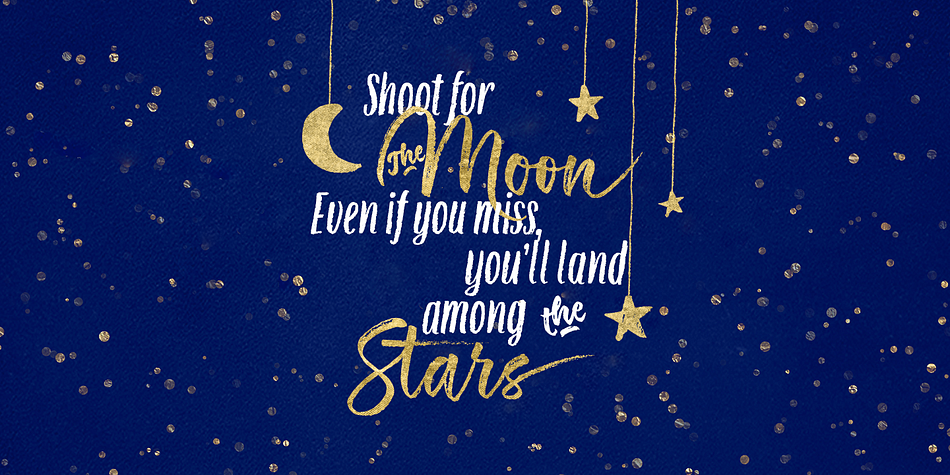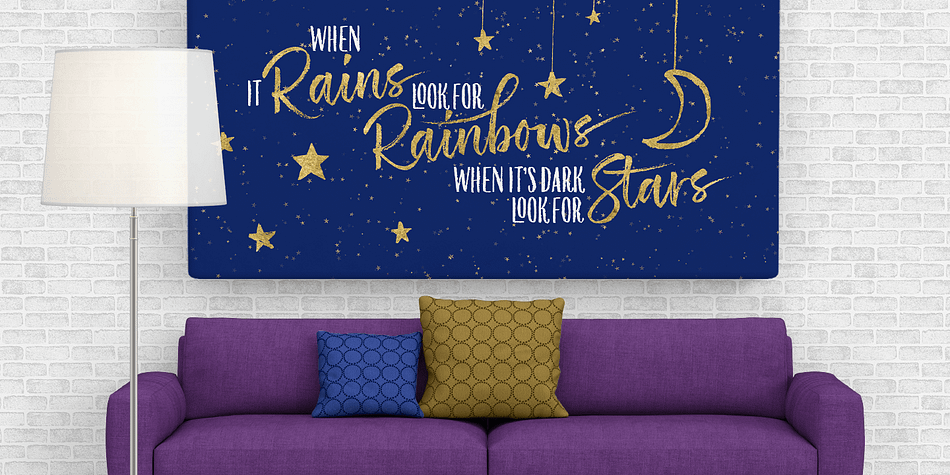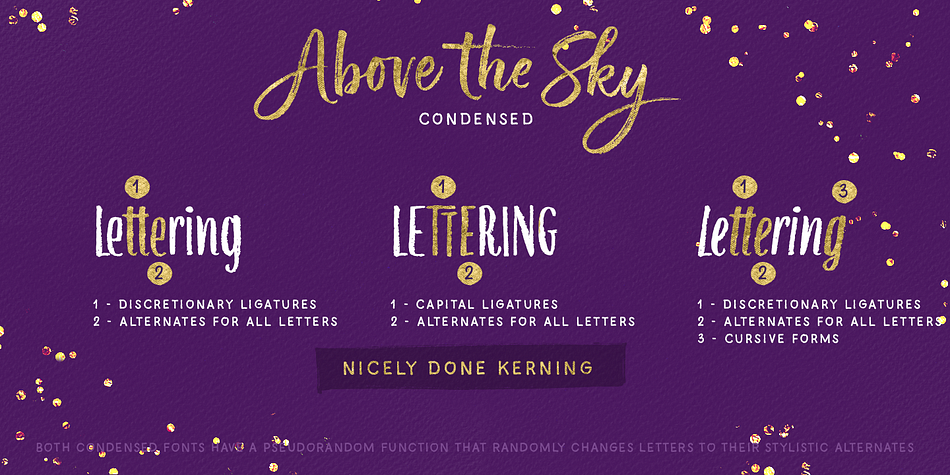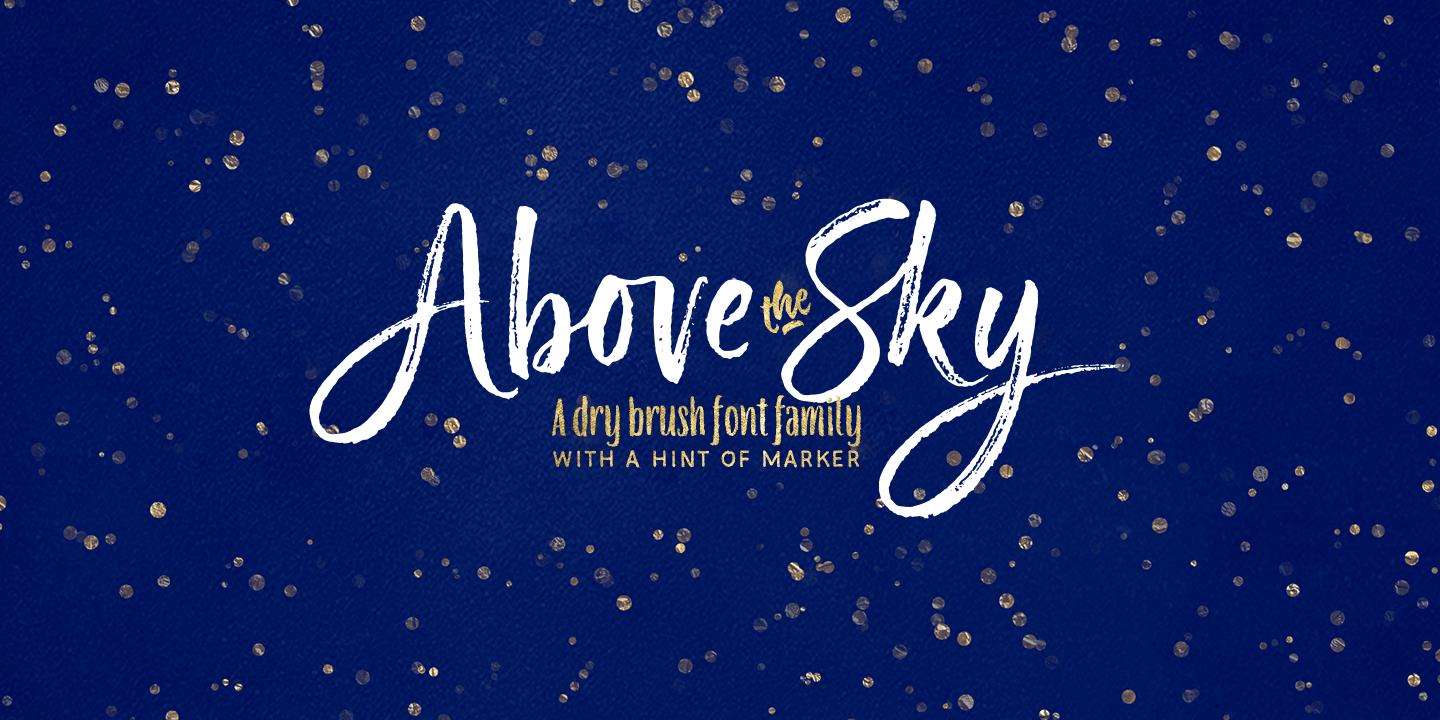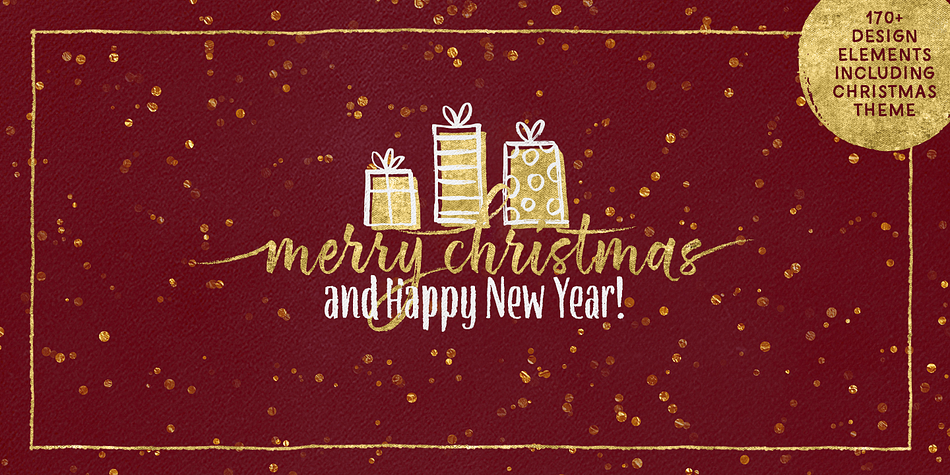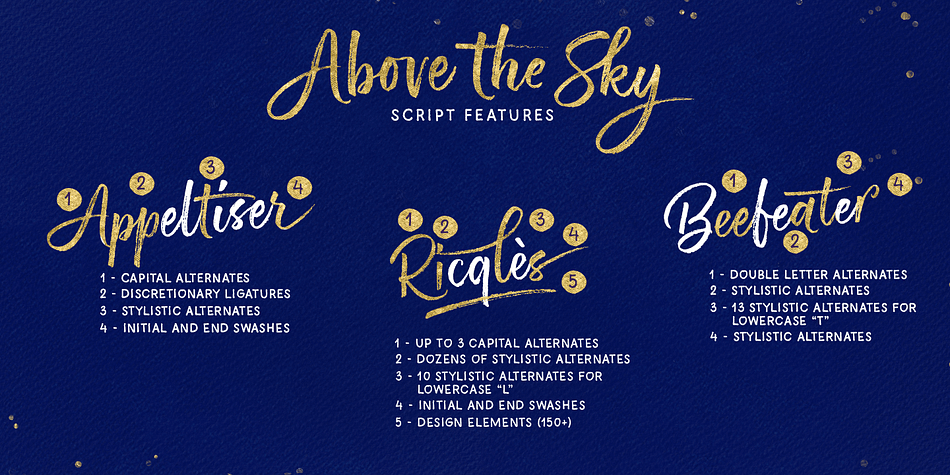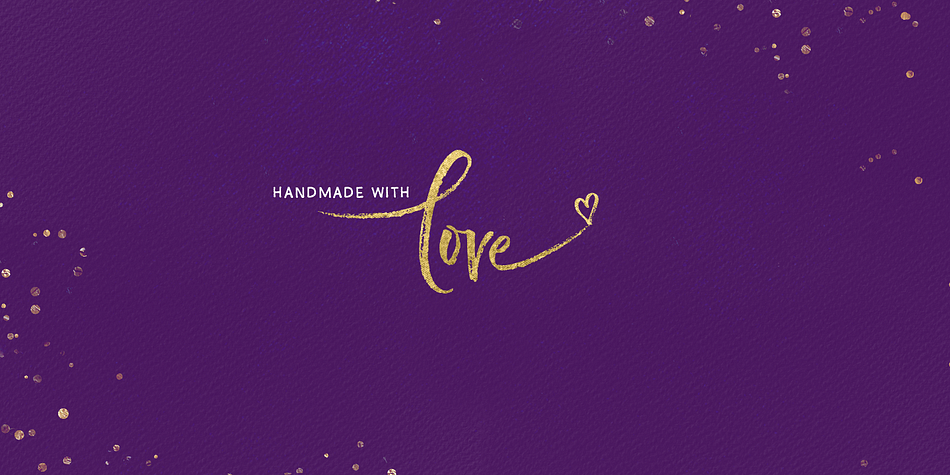
Designed by Elena Genova, Above The Sky is a multiple classification font family. This typeface has five styles and was published by My Creative Land.
Please welcome a new brush written font family Above the Sky which also includes a long requested all caps marker font, the one you can use to add a “secondary” text to your designs.
All fonts make a good companions and can be used for all sorts of type-based creations, quotes, branding, merchandise, packaging, invites, greeting cards and so on.
You will be over the moon when you find out all Above the Sky possibilities. The brush script has tons and tons of alternates, ligatures, swashes - more than 1200 glyphs are here to serve you well. It can be successfully combined with the Condensed font or/and with the Marker font included in the package.
The brush drawn Design Extras font makes the whole thing even better!